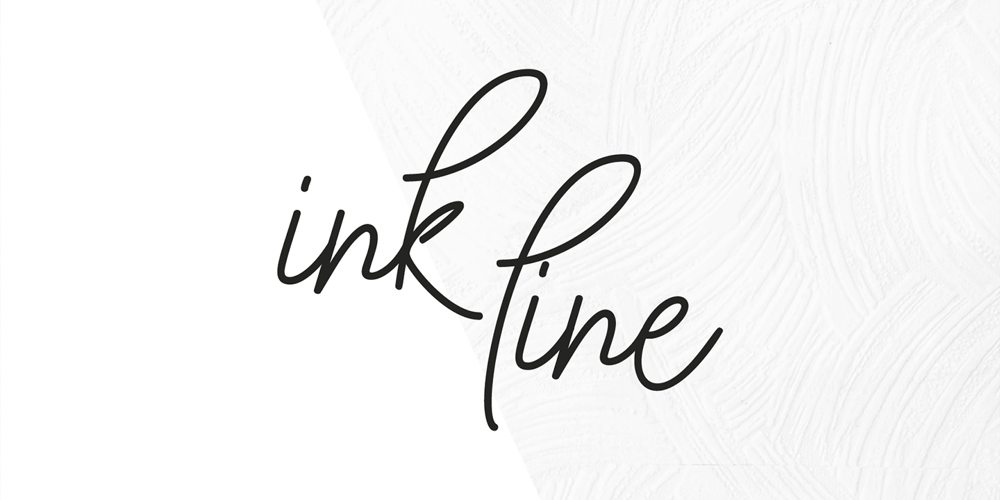
Ink Line Font Family was designed by Eko Kurniawan and published by Atom. Ink Line contains 1 styles and family package options. Ink Line is a modern font script that gives a unique impression. With ligature, titling, swash, and multi language features, Ink Line is very easy to use in the application of posters, flyers, titles, bloggers, Instagram stories, web banners, etc. Happy Design 🙂